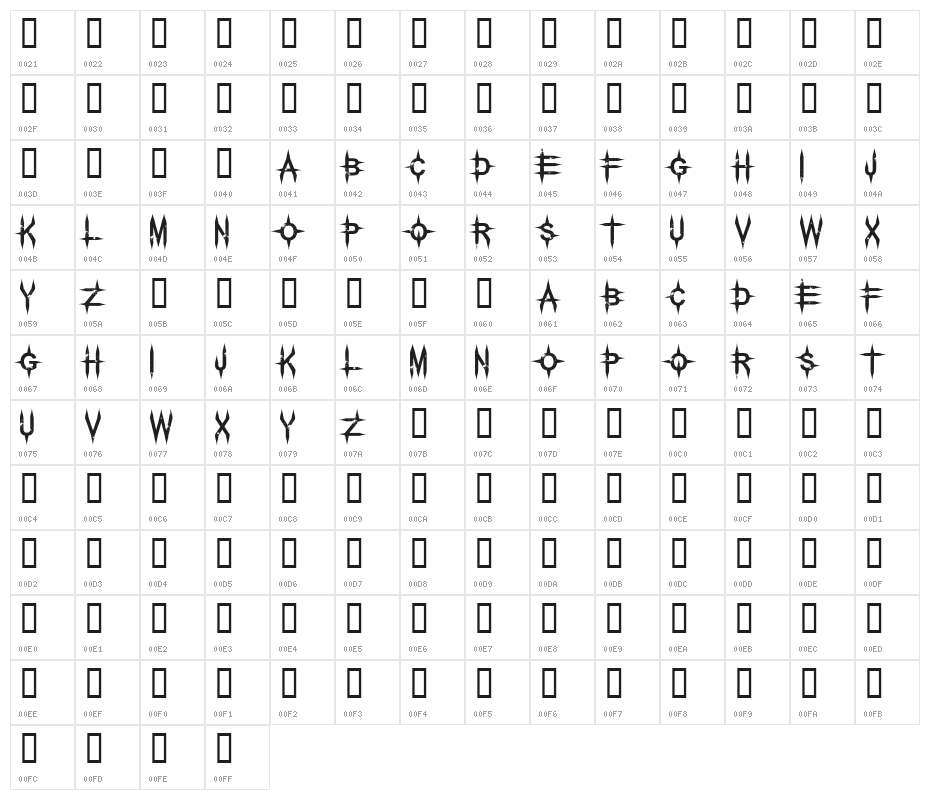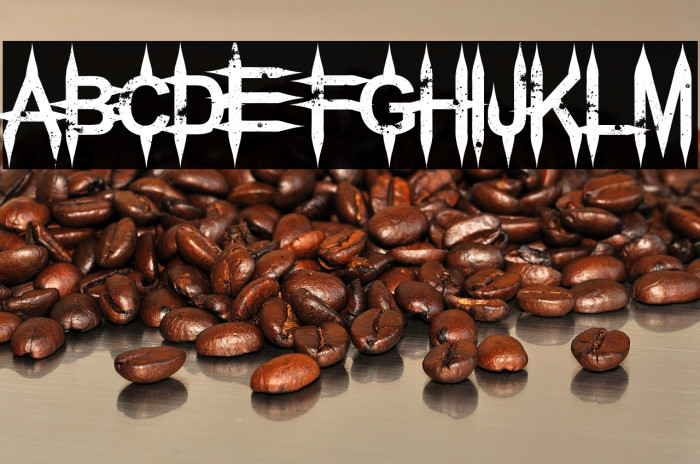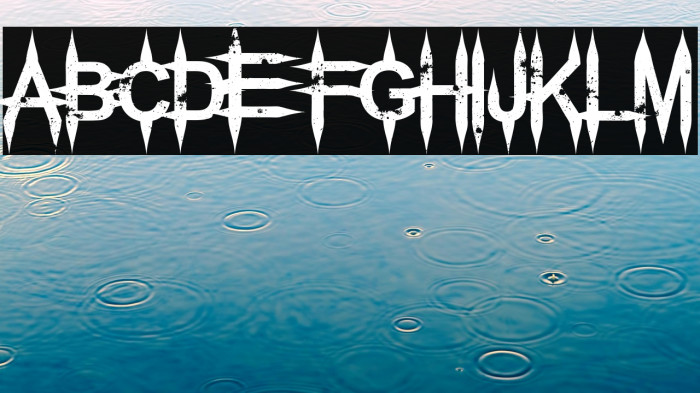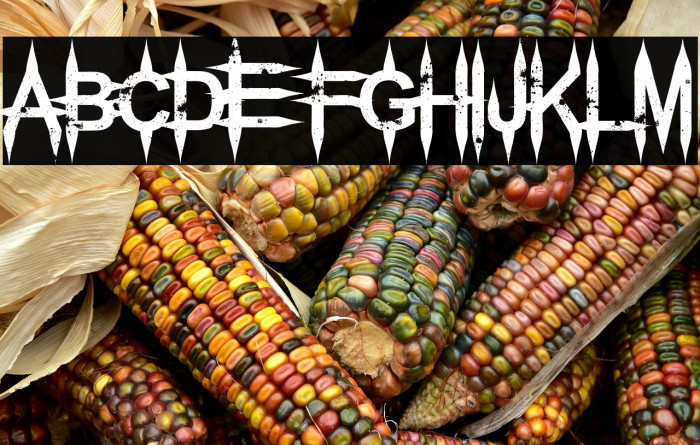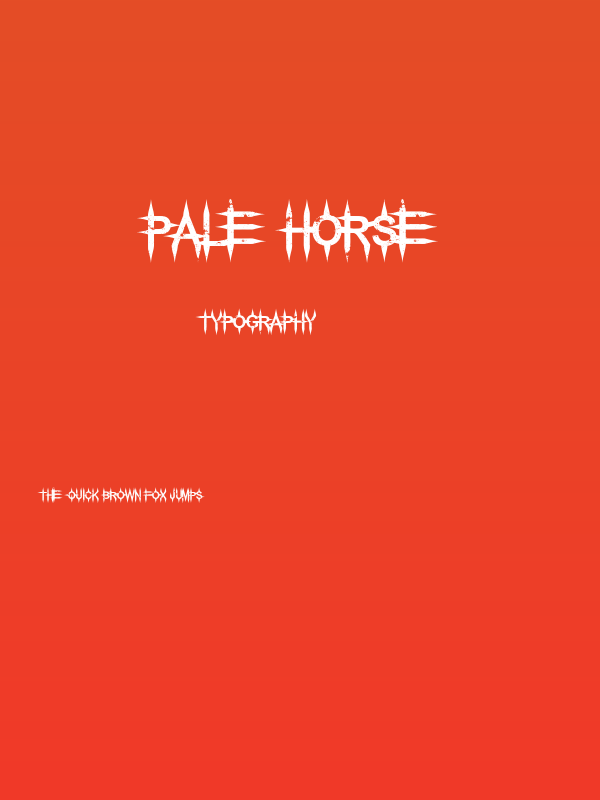
Pale Horse Font
Pale Horse Description
This font features a bold, distressed style with sharp, pointed edges and a grungy texture. The uppercase letters are characterized by their aggressive, spiked appearance, giving them a dynamic and edgy look. The design incorporates a rough, weathered effect, adding to its rebellious and intense aesthetic. The characters are tightly spaced, enhancing the compact and impactful nature of the font. This style is particularly suited for projects that require a bold statement or a gritty, urban feel.
| Proposed Projects | Ideal for music album covers, posters, or any design needing a bold, edgy statement. |